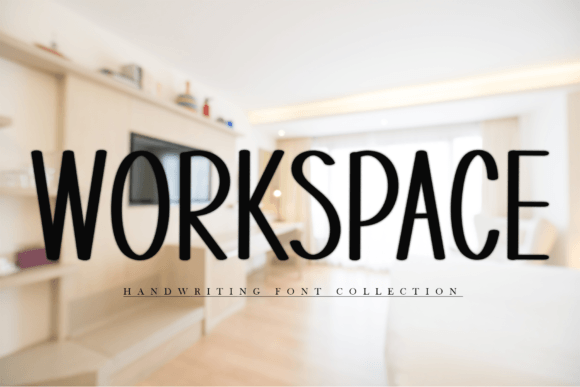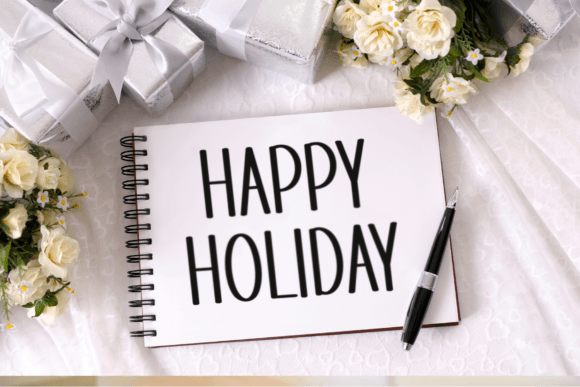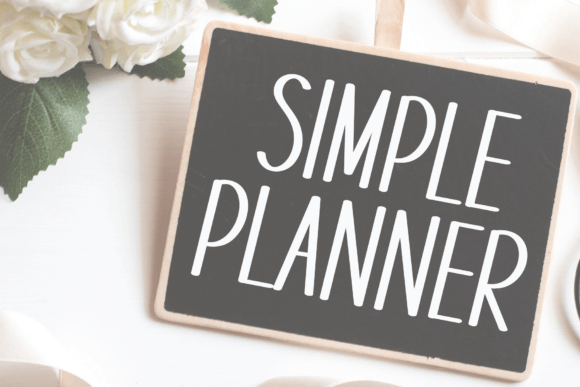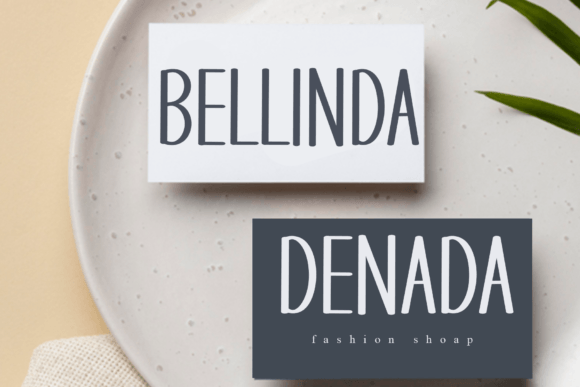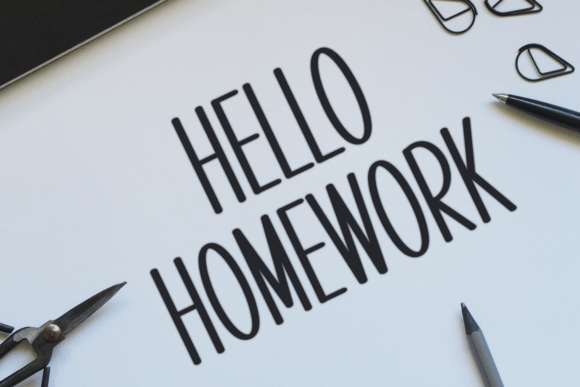
Workspace Font
**Workspace: A Simple and Round-Edged Handwritten Font**
Introducing **Workspace**, a straightforward handwritten font featuring round-edged letterforms that have been meticulously crafted to achieve the desired results. This font offers a clean and minimalist aesthetic, making it a versatile choice for various applications, including titles, invitations, letters, and a wide range of creative projects.
**Workspace** distinguishes itself with its simplicity and rounded letterforms. The clean lines and rounded edges give it a modern and approachable appearance, making it an excellent choice for projects that require a neat and friendly look.
Whether you’re using it for titles, invitations, letters, or any other type of product, **Workspace** offers a straightforward and readable option that adapts well to various design styles and concepts.
In essence, **Workspace** is more than just a font; it’s a versatile tool that allows you to infuse your projects with a clean and round-edged aesthetic. Whether you’re crafting titles, invitations, or other textual elements, choose **Workspace** to give your work a straightforward and approachable charm. Embrace its simplicity and let your creativity flow freely.